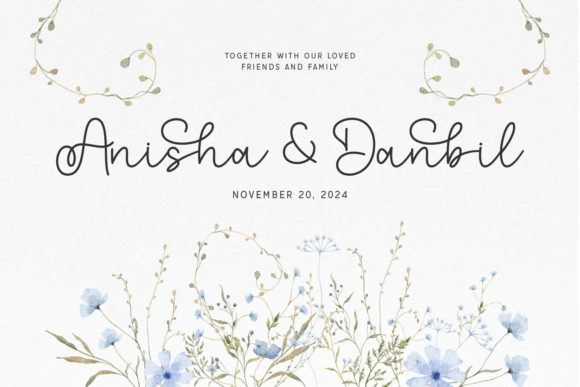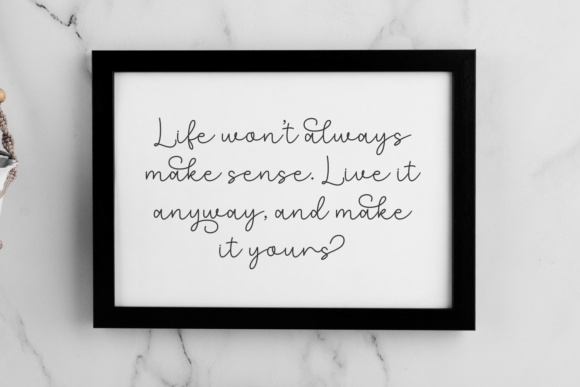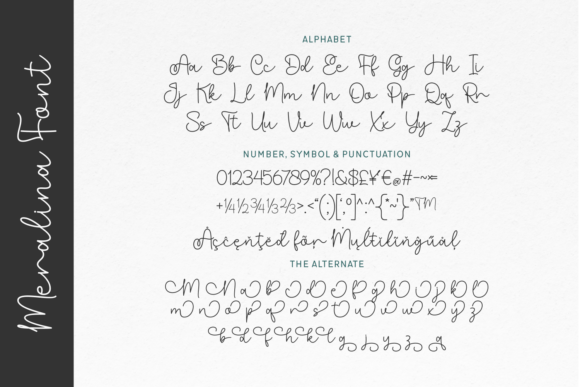
Introduction to Meralina Font Font
Fonts play a crucial role in design, and the Meralina Font font is a typeface that brings both character and versatility to any project. Whether you’re working on a branding project, a website, or a print design, the Meralina Font font offers a unique style that can elevate your work.
Meralina is a delicately crafted monoline script font, radiating elegance and romantic charm.
With its soft loops, smooth connections, and whimsical flourishes, this handwritten typeface is perfect for wedding designs, floral branding, love quotes, and feminine stationery Made with love, Meralina adds a graceful, heartfelt touch to every creative project.
Key Features of Meralina Font Font
Why Choose Meralina Font Font?
The Meralina Font font is more than just a typeface – it’s a design tool that helps you communicate your message with style and clarity. Its unique character set and versatile design make it suitable for a wide range of applications, from elegant invitations to bold headlines.
With its carefully crafted letterforms and balanced proportions, the Meralina Font font ensures readability and visual appeal across all mediums.
What makes Meralina Font font special?
The Meralina Font font stands out with its unique design, exceptional readability, and versatility across various design applications.